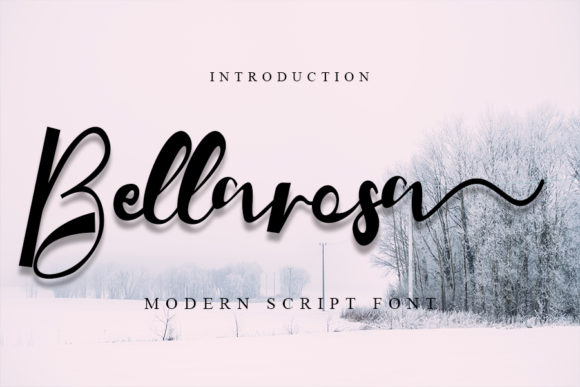
Step into the enchanting world of Bellarosa, where elegance and charm dance harmoniously. This captivating script font, crafted with love by ABBAsalam, is a symphony of curves and flourishes that will elevate your designs to new heights.
Unleash the magic of Bellarosa and weave your words into a tapestry of enchantment. Its flowing strokes and playful swashes will add a touch of whimsy to your business cards, leaving a lasting impression on all who behold them. With every letter you write, Bellarosa will transform your designs into exquisite masterpieces.
Dive into the heart of Bellarosa and discover a treasure trove of creative possibilities. Its PUA encoding unlocks a realm of hidden glyphs and swashes, empowering you to express your individuality like never before. Let your imagination soar as you craft designs that are both visually stunning and utterly captivating.
With Bellarosa, your words will dance across the page, carrying with them a symphony of emotions. Its enchanting allure will captivate your audience, drawing them into your world of creativity and imagination. Experience the joy of writing with a font that truly embodies the spirit of love and celebration.
Indulge in the beauty of Bellarosa and elevate your designs to extraordinary heights. Let its enchanting script weave its magic into your creations, leaving an imprint of elegance and enchantment that will forever be cherished.